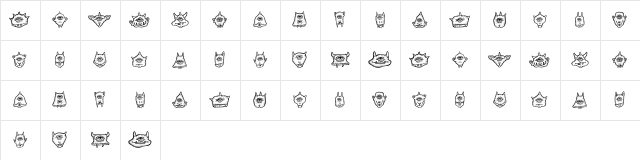
Cyclopia Regular
Design Context for Cyclopia Typeface
Cyclopia is a composed and adaptable typeface that performs quietly and consistently across a wide range of design contexts.